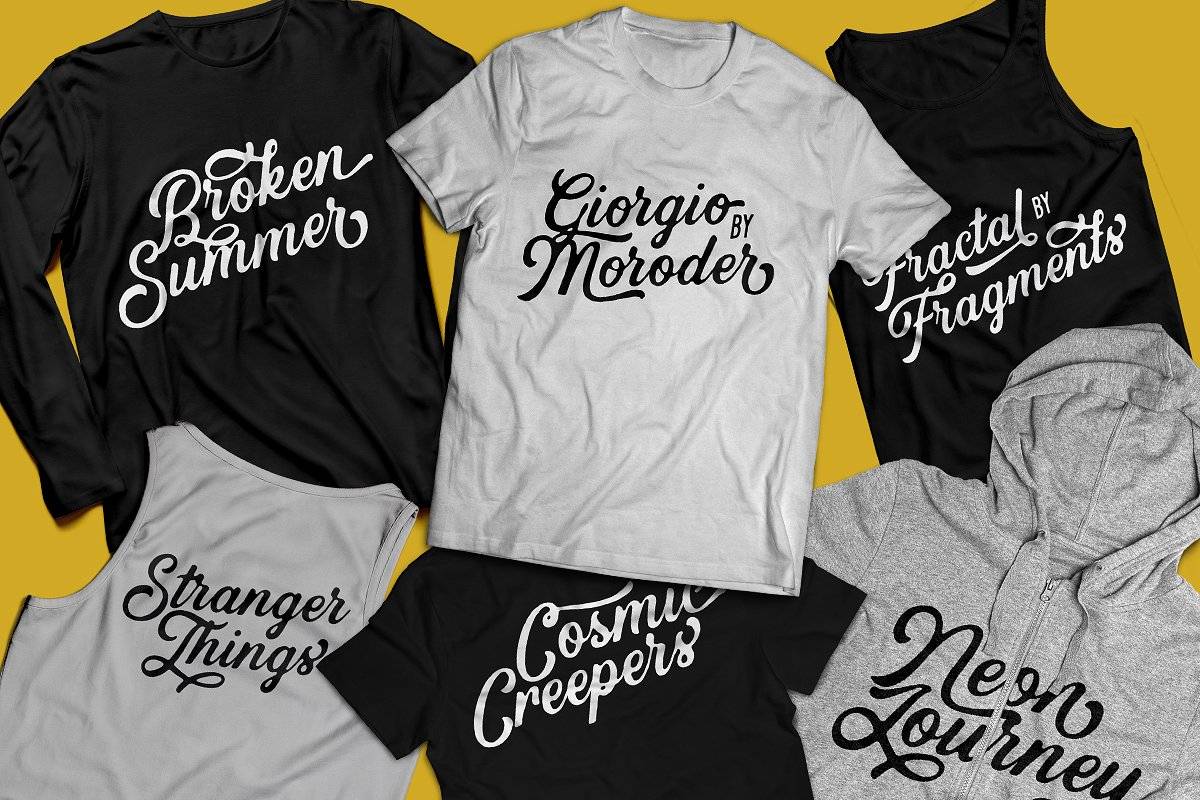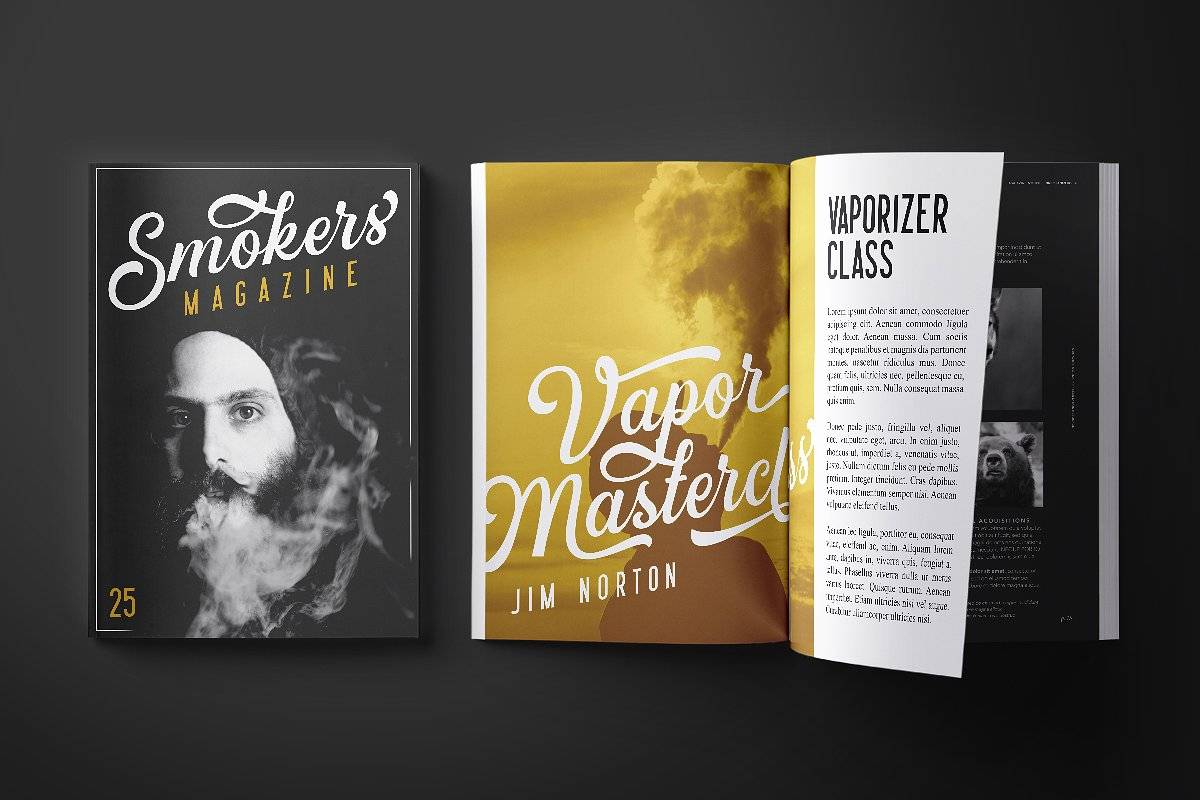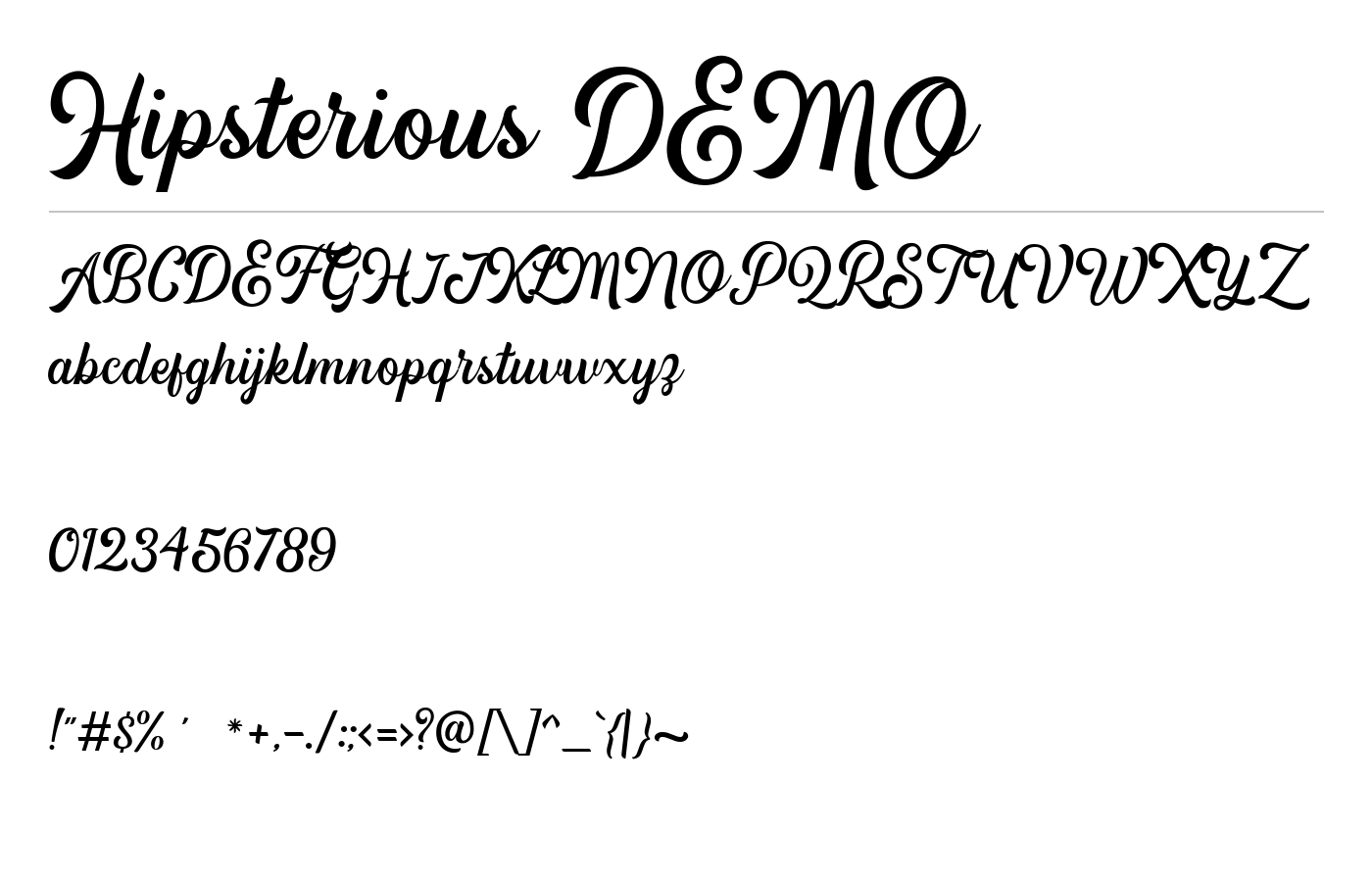
Hipsterious Font is a stylish, script typeface with a classic, slightly vintage feel, featuring elegant, flowing letterforms that combine smooth curves with subtle, sharp edges. Its medium weight and balanced contrast make it ideal for sophisticated branding, invitations, and headlines where a touch of charm and personality is desired. This font works beautifully for fashion, lifestyle, or creative projects seeking an expressive and refined yet approachable look.
Hipsterious Font
About Hipsterious Font
| Font family | Hipsterious Font |